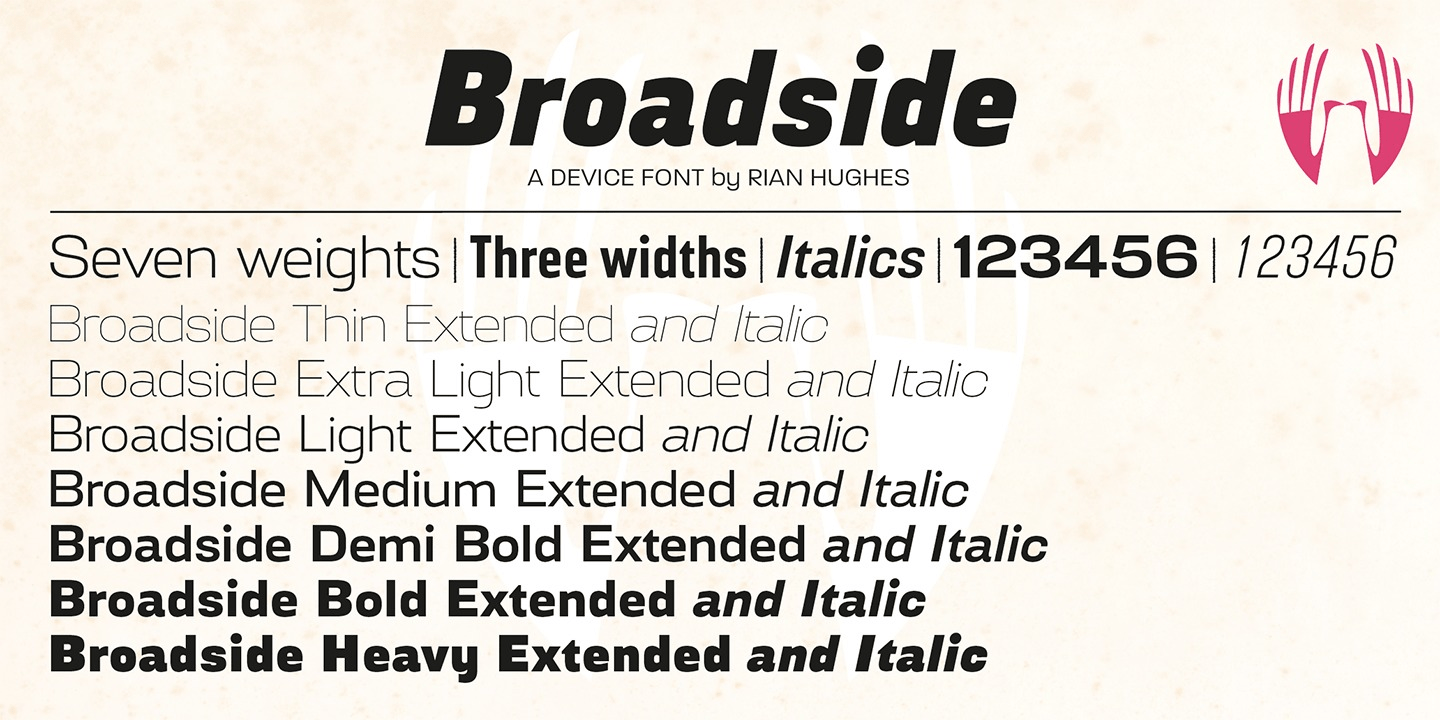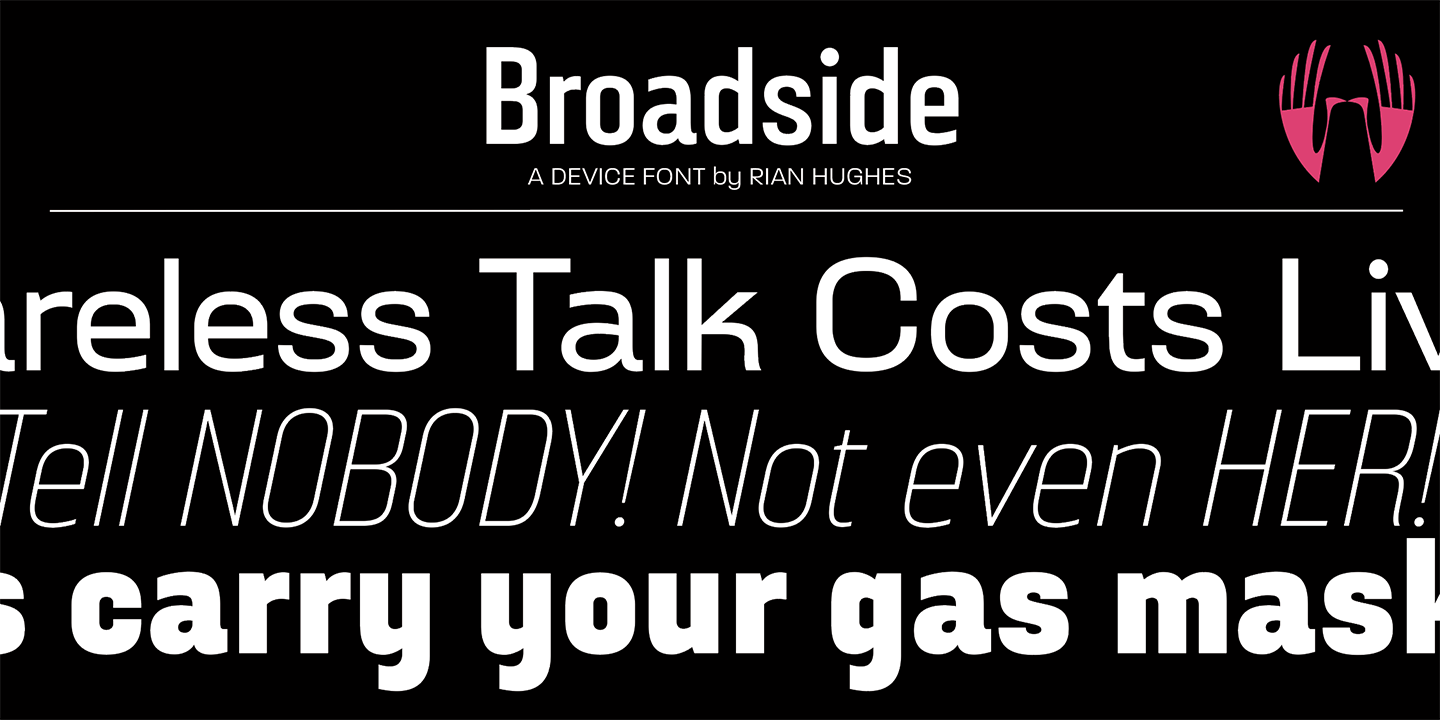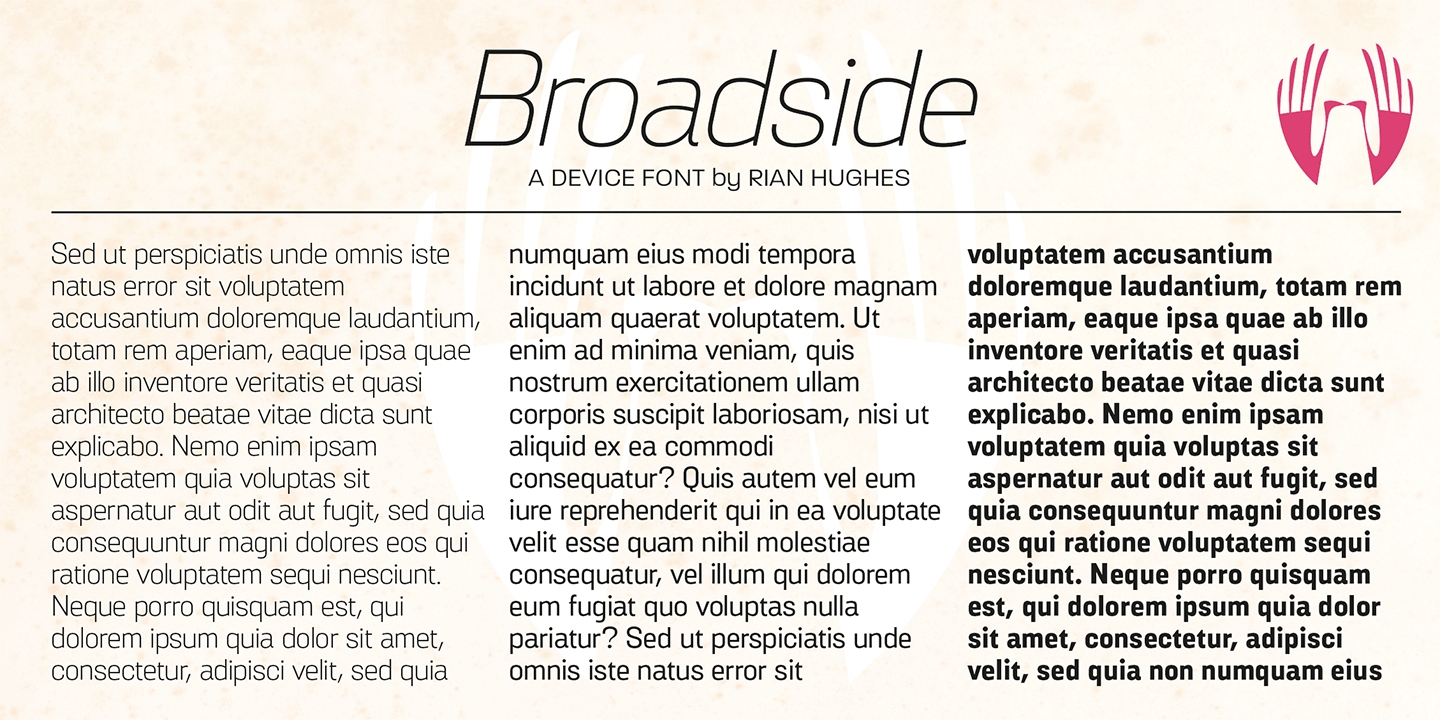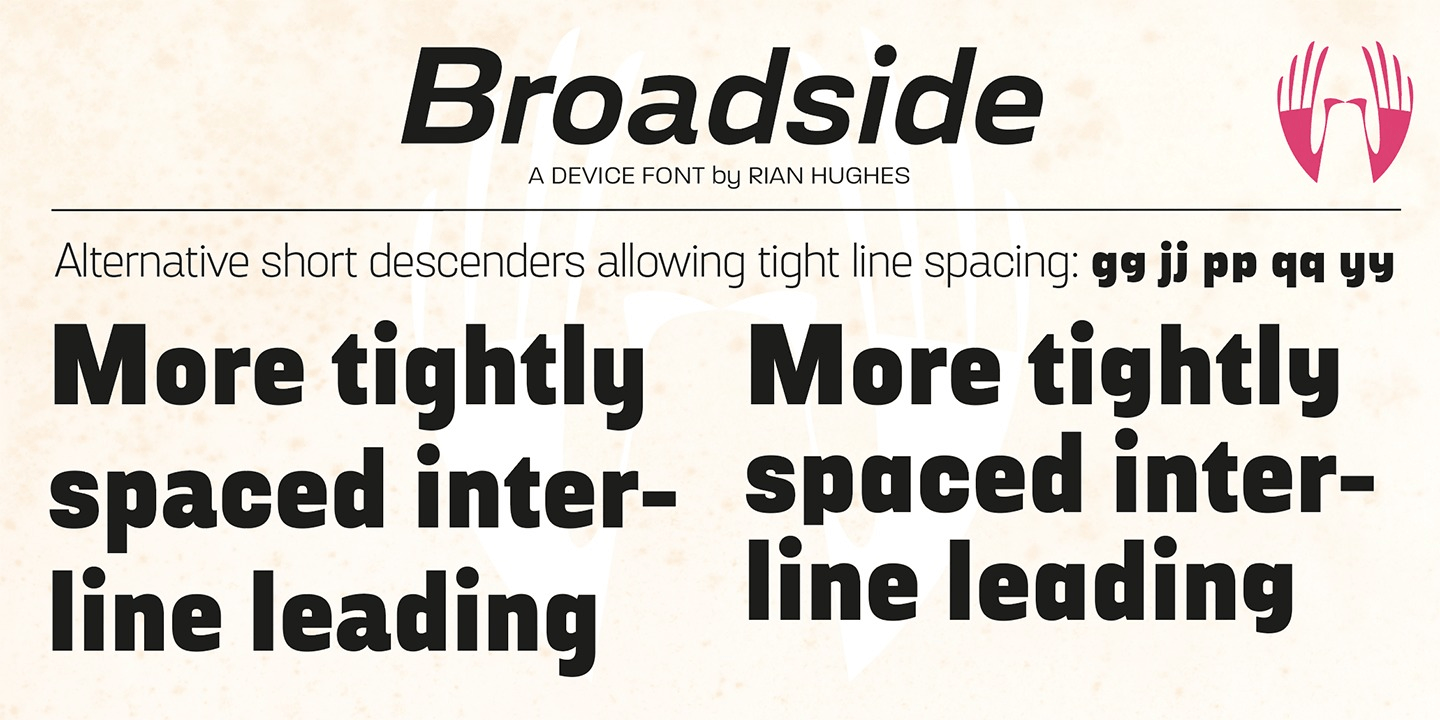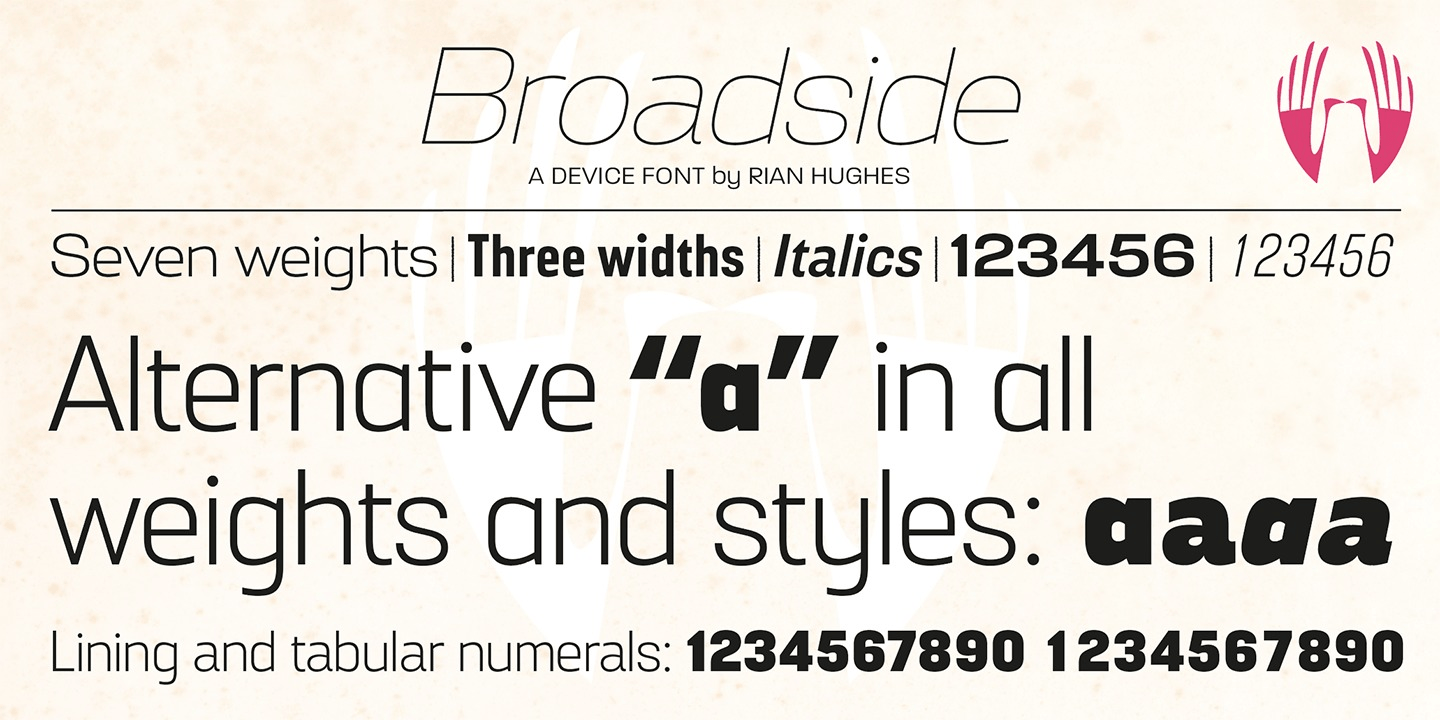
Broadside
Font Family by Device
Broadside is a versatile, authoritative and functional family inspired by the sans serifs seen on ?40s and ?50s patriotic posters and period advertising. It is available in seven weights across condensed, normal and extended widths, each with reweighed italics.
The type from this period was very often hand-drawn, and so differs considerably from poster to poster. Many American examples of this period use a Photo-Lettering style called Murray Hill and its derivatives, although their UK counterparts, designed by such luminaries as Abram Games or Tom Eckersley, are more stylistically diverse. Even though no single model is available to base a digitisation on, there are certain recurring stylistic quirks that give the type its unique flavour, and so the most interesting examples from several sources were be combined for the final family.
Alternate short descenders, allowing for tighter line spacing, can be toggled on or off in the Opentype panel of Indesign or Illustrator.
Tabular and lining numerals and a single-story ?a? are also available in all weights and styles.